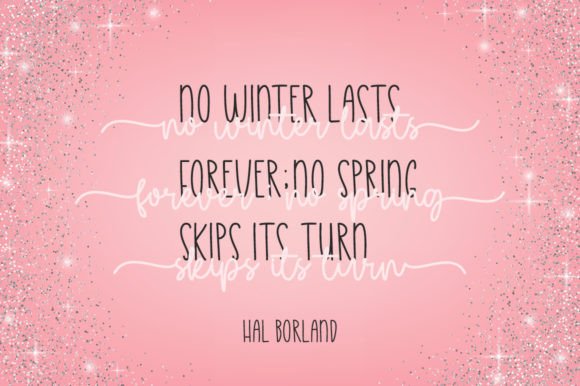
Glow Girl Font
Glow Girl consists of two handwritten fonts designed to complement each other perfectly. Together or apart, these fonts are ideal for adding a chic and cheery touch to your crafts.GlowGirl is PUA encoded which means you can access all glyphs and swashes with ease!